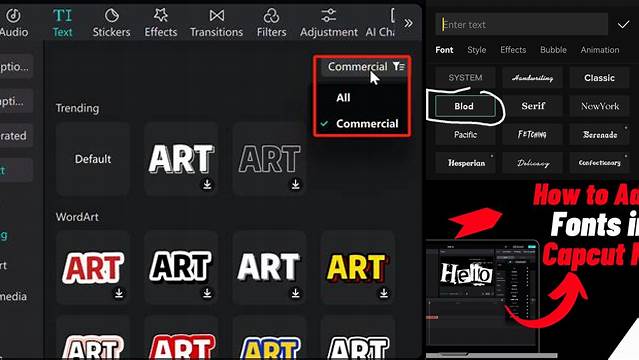
CapCut PC Fonts: Find & Install Guide
Hey everyone! Ever wondered how to search for fonts in CapCut PC? You're in the right place! Finding the perfect font can seriously level up your video edits, making them look more professional and eye-catching. This guide is all about helping you navigate the font jungle in CapCut PC, so you can find and use the fonts that best express your creative vision. We'll cover everything from the basics of where to look to some cool tips and tricks to make your font game strong. Get ready to dive in and transform your videos with awesome typography!
The Font Section: Your Starting Point
Alright, let’s kick things off by getting familiar with where the font action happens. In CapCut PC, the font selection and customization options are neatly tucked away in the Text tool. When you have added some text to your timeline, you will see all the text-related tools show up in the right sidebar. This is where all the magic happens, you can choose the perfect font for your project. The first thing you’ll probably notice is the font dropdown menu. This is the place where all the fonts installed on your system are listed. When you start a new project, CapCut will usually show a default font, but you can change this easily. Clicking on the dropdown will reveal a list of all the available fonts on your computer. You can scroll through this list to find a font, or start typing the name of the font you want. CapCut will filter the list, making it easy to find the font you're after. But before you get too excited about all the creative possibilities, let's cover the basics. Let's say you've just downloaded CapCut PC for the first time. You might be wondering: "Where are the fonts?" or "How to search for fonts in CapCut PC?" Or maybe you have a specific font in mind but don't know how to get it into the program. No sweat, we'll explore this in detail!
This font dropdown menu is your gateway to typography heaven within CapCut PC. It’s designed to be intuitive and easy to use, even if you are new to video editing. The design is clean, and the search bar is very easy to use, making sure that you can quickly find the fonts you need. Beyond the font selection, this area also offers a range of other text customization options. You can adjust the font size, style (like bold, italic, and underline), alignment, and spacing between letters and lines. These controls are all available in the text panel. So, once you've found the font, you can fine-tune it to perfectly fit your video. This includes the color of the text, and you can add things such as backgrounds, borders, and shadows to your text. These tools give you full control over the look and feel of your text elements, helping you to create a visual style that perfectly matches your project. Remember, the right font and the right formatting can make your video project stand out, communicating your message more effectively and engagingly. So, take some time to play around with the options and discover what works best for your video content. The text tool is very useful, so be patient and experiment to see the results!
Installing New Fonts: Expanding Your Options
So, you've browsed through the default fonts and you're ready for more? Great! Installing new fonts is a breeze in CapCut PC, opening up a world of creative possibilities. You might ask, "How to search for fonts in CapCut PC?" Well, the search feature is very basic, but let me help you with the most common ways to install the fonts.
Tips and Tricks: Mastering Font Selection
Now that you know how to find and install fonts, let's dive into some tips and tricks to take your font game to the next level. Choosing the right font is crucial for communicating your message effectively and creating a visually appealing video. Remember, each font carries its own style, tone, and personality. A professional video may use a clean, easy-to-read font such as Arial or Roboto. If you are doing a more casual video, you can use a handwritten style or a playful font. This choice will depend on your project's goal and audience. Don’t be afraid to experiment with different fonts. Try mixing and matching different fonts to create a unique visual style. Keep in mind readability! While a fancy font might look cool, it’s important that your text is easy to read, especially if you're using it for important information or subtitles. Remember, the text should complement the video and not distract the audience.
Consider the context! What is the overall tone and style of your video? A serious documentary will require a different font than a fun YouTube video. Check if the font is consistent with the overall brand. If you're working on a project for a client or a brand, make sure that the font aligns with their existing branding guidelines. Once you select a font, play around with the text customization options to find the perfect look. Adjust the size, style, spacing, color, and other attributes of your text until it looks the way you want it to. The use of other effects, such as outlines and drop shadows, can help the text stand out from the background and make the text easier to read. If you create a particular style that you like, consider creating a text template. This will allow you to quickly and easily apply the same style to future text elements in your video. Experiment, try different fonts, and don't be afraid to try new things! The more you experiment, the better you will understand what works best for your projects. The most important thing is to have fun and explore the possibilities! By following these tips, you will be able to create a better video!
Troubleshooting: Common Font Issues
Let's cover some common problems that people can encounter when working with fonts in CapCut PC and how to fix them. Sometimes, things don't go as planned, and you might run into some font-related issues. Here are some of the most common ones and how to fix them. The first problem is that the font is not appearing in CapCut. After installing a new font, you may not see it in the font dropdown menu. First, make sure you’ve installed the font correctly by checking your system's font manager. Also, make sure that you have the correct file for the font. Also, check if you have closed and reopened CapCut PC. Sometimes, this simple step will refresh the font library. If that doesn't work, try restarting your computer. Another common problem is that the font appears garbled or displays incorrectly. This can be due to font corruption or compatibility issues. You should try reinstalling the font to fix this problem. Download the font file again, then install it again. If the problem continues, the font file might have a problem, so try using a different font. Remember to check if the font you're using is compatible with your operating system. Older fonts might not render correctly on the latest versions of Windows or MacOS. Finally, make sure CapCut is up to date. Software updates often include fixes for font rendering and other compatibility issues. Keeping CapCut updated can help you avoid problems and ensure that fonts are displayed correctly. If you're still experiencing problems, you may need to consult CapCut's support documentation or seek help from online video editing forums. Remember, the key is to be patient and persistent. Usually, the problem is related to the way you installed the font, so going through these steps will help you understand how to fix it.
Conclusion: Unleash Your Typography Skills
Congrats, you’ve made it to the end! You now know how to find fonts in CapCut PC and a few tricks to customize your videos. From where to find and install new fonts to useful tips for choosing the perfect fonts, you have the essential knowledge to step up your video editing game. Remember, the key is to be creative. Try experimenting with different fonts, styles, and effects. Explore and find what best works for you. Don't be afraid to break the rules. The more you practice, the better you will get at creating stunning videos that captivate your audience. Enjoy creating awesome videos with the best fonts!